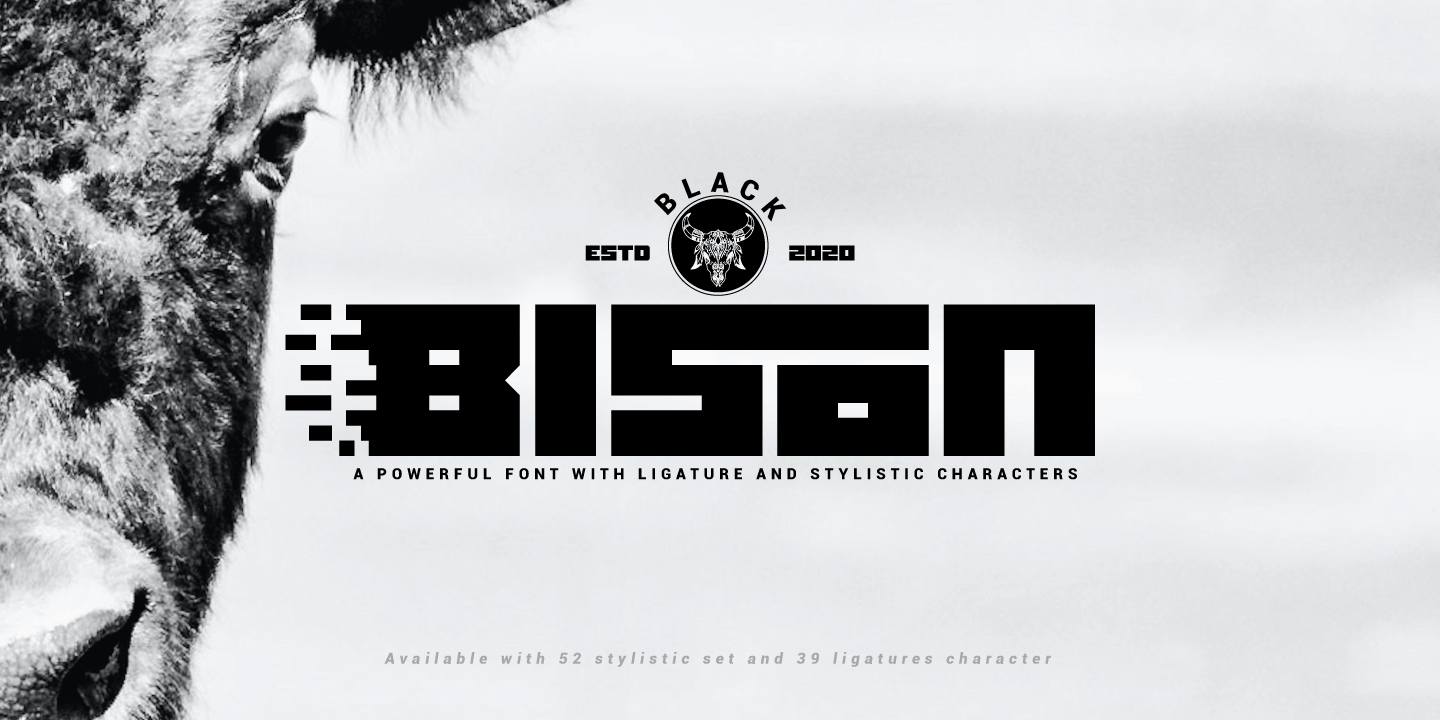
Black Bison Font is perfect for powerful Native American cultural center branding, majestic wildlife conservation organization logos, rugged Western ranch marketing, strong frontier heritage museum displays, bold outdoor hunting equipment advertising, mighty buffalo sanctuary promotions, authentic Native heritage festival graphics, powerful wilderness preservation campaigns, robust Great Plains tourism materials, and commanding frontier spirit brand identities. Its mighty powerful character makes it ideal for projects requiring Native strength and frontier authenticity.
What makes Black Bison Font exciting is its commanding embodiment of Native American strength and frontier power with bold letterforms and majestic characteristics that capture the essence of Great Plains heritage and wildlife majesty excellence. The font features powerful proportions, bison-inspired details, and commanding character construction that create authentic frontier atmosphere and Native appeal. Its mighty personality brings strength and cultural respect to contemporary designs while maintaining the clarity essential for cultural communications and heritage presentations. The carefully crafted powerful elements ensure cultural authenticity while preserving the distinctive character that embodies the essence of Native heritage and frontier excellence.
Black Bison Font comes in multiple powerful variations including Light, Regular, Medium, Bold, and Mighty styles. Each family member maintains the distinctive Native character while offering comprehensive flexibility for frontier typography and cultural brand system development. The complete font family includes alternate characters, Native symbols, and frontier decorative elements that provide extensive tools for creating immersive cultural design experiences and authentic Native brand storytelling.
Whether you're developing Native brands, wildlife organizations, or frontier heritage projects, Black Bison Font Free Download provides the powerful authenticity needed to communicate with cultural communities and heritage enthusiasts who appreciate Native American tradition and frontier strength. The font's commanding appeal resonates with cultural professionals, wildlife conservationists, and heritage educators seeking authentic Native credibility and frontier sophistication. Its comprehensive character set includes Native symbols and frontier marks, making it perfect for creating complete cultural brand systems and memorable Native storytelling across diverse heritage applications and strength-focused design projects that celebrate Native American culture and frontier excellence.